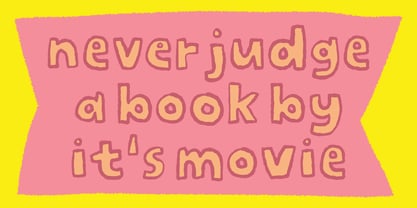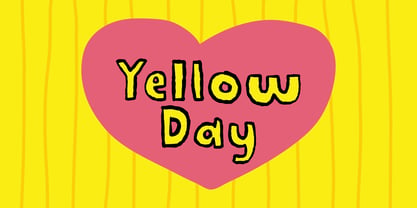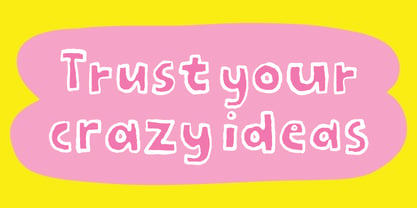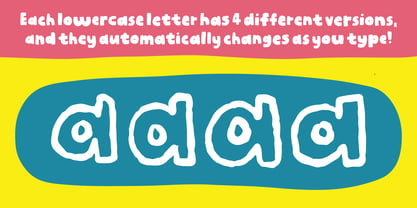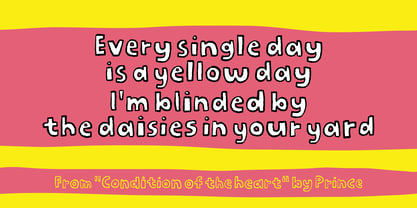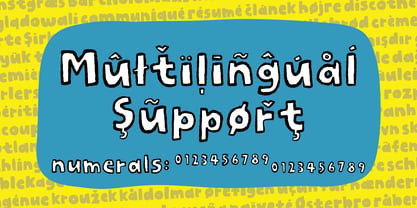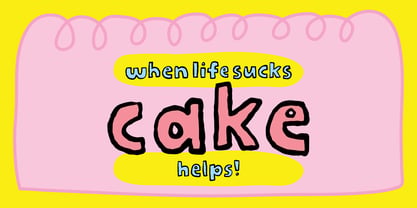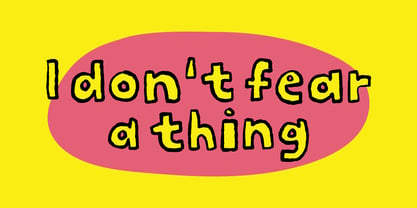
Yellow Day
by PizzaDude.dk
The Yellow Day Font Family was designed by Jakob Fischer and published by PizzaDude.dk. Yellow Day contains 3 styles and family package options. More about this family
"Yellow day" is from of an old song by Prince called "Condition of the heart" - back in the days I listened a lot to Prince, but this song I hadn't heard for years. Anyway, just like other memories and re-listening to older song seems to make me want to name a font after the lyrics, and this is no exception! I used an inky/blobby pen to draw this font, not really concentrating on making anything look either clean or beautiful - but more like a sloppy and off grid kind of alphabet. A great font for something that needs a naive and happy-go-lucky look. I have added 4 different versions of each lowercase letter, and they automatically changes as you type - just like magic! :)
Designers: Jakob Fischer
Foundry: PizzaDude.dk